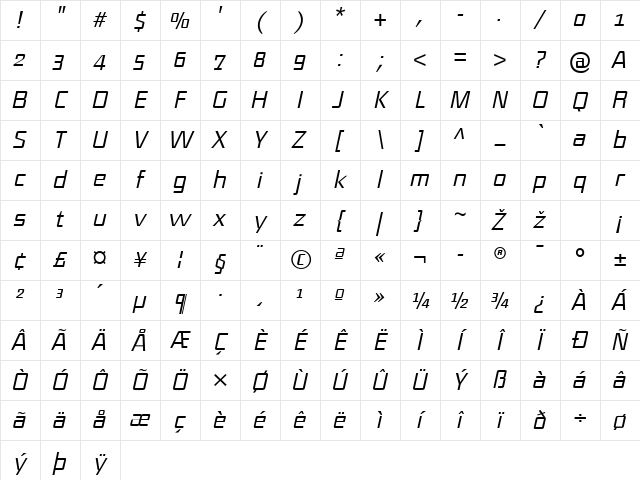
District-LightItalic Regular
Foundry: FontShop International
Designer: Albert Boton
Design Context for District-LightItalic
District-LightItalic is a composed and adaptable typeface that performs quietly and consistently across a wide range of design contexts. The slanted form adds forward momentum and visual energy. Its slender proportions lend an understated elegance to any composition.
Pro Tip: Use District-LightItalic for emphasis, pull quotes, and subheadings where its slanted energy can add rhythm to the layout.